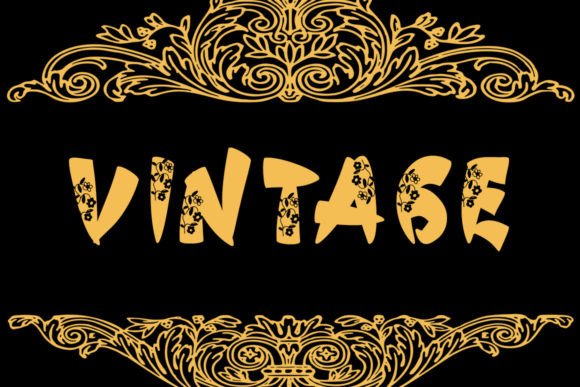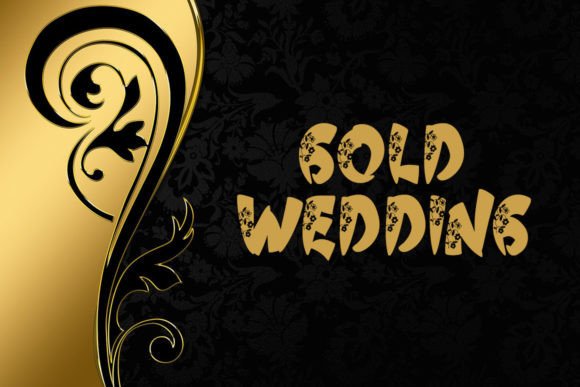
The Sweet Delight of Flower Polution Font
Have you ever been in the middle of a design project, and suddenly, you’re stuck on finding the perfect font? I recall a recent experience where I was working on a whimsical craft project, and my design just felt flat without the right typography. That’s when I stumbled upon the Flower Polution font, and it instantly elevated my project to a whole new level! In this article, we’ll dive into the beauty of Flower Polution, its features, and how to make the most of it in your designs.
A Personal Review of Flower Polution
Let’s get straight to it – I absolutely adore Flower Polution! Here’s what makes it stand out:
- ✨ Beautiful and Sweet Design: The font boasts a charming, hand-crafted look that’s perfect for a variety of projects.
- ✅ Versatility: It works amazingly well in both formal and informal designs, making it a fantastic addition to your font library.
- 🌼 Elegant and Whimsical: The subtle floral elements add a touch of elegance and playfulness to your text.
While Flower Polution is a stunning font, there are a few minor things to keep in mind:
- 🤔 Legibility at Small Sizes: Like many script fonts, it may lose some legibility when used at very small sizes. It’s best used at larger sizes where its details can shine.
- ⚠️ Overuse: Given its beautiful design, it’s easy to overuse it in a single project. Balance is key to making your design pop.
The Inspiration Behind Flower Polution
While the true origins of Flower Polution might not be well-documented, it’s easy to imagine that it was crafted with the intention of bringing a bit of floral whimsy to the world of typography. Perhaps the designer, inspired by the beauty of nature, aimed to create a font that feels both elegant and approachable. Whatever the backstory, Flower Polution certainly delivers on its promise of adding a sweet, charming touch to any design.
| Font Name | Flower Polution Font |
| Author | Mr.Soon Design |
| What type of projects is Flower Polution best suited for? | Flower Polution is versatile and can be used in a variety of projects, from formal invitations and elegant branding to informal crafts and DIY projects. |
| Does Flower Polution support OpenType features? | Yes, Flower Polution likely supports OpenType features such as glyphs and stylistic alternates, which can be accessed in compatible design software like Adobe Illustrator. |
Flower Polution is undoubtedly a beautiful addition to any designer’s toolkit. Its unique blend of sweetness and elegance makes it perfect for a wide range of projects. By understanding its features and how to use it effectively, you can elevate your designs to new heights. So go ahead, give Flower Polution a try, and see how it can transform your creative projects!